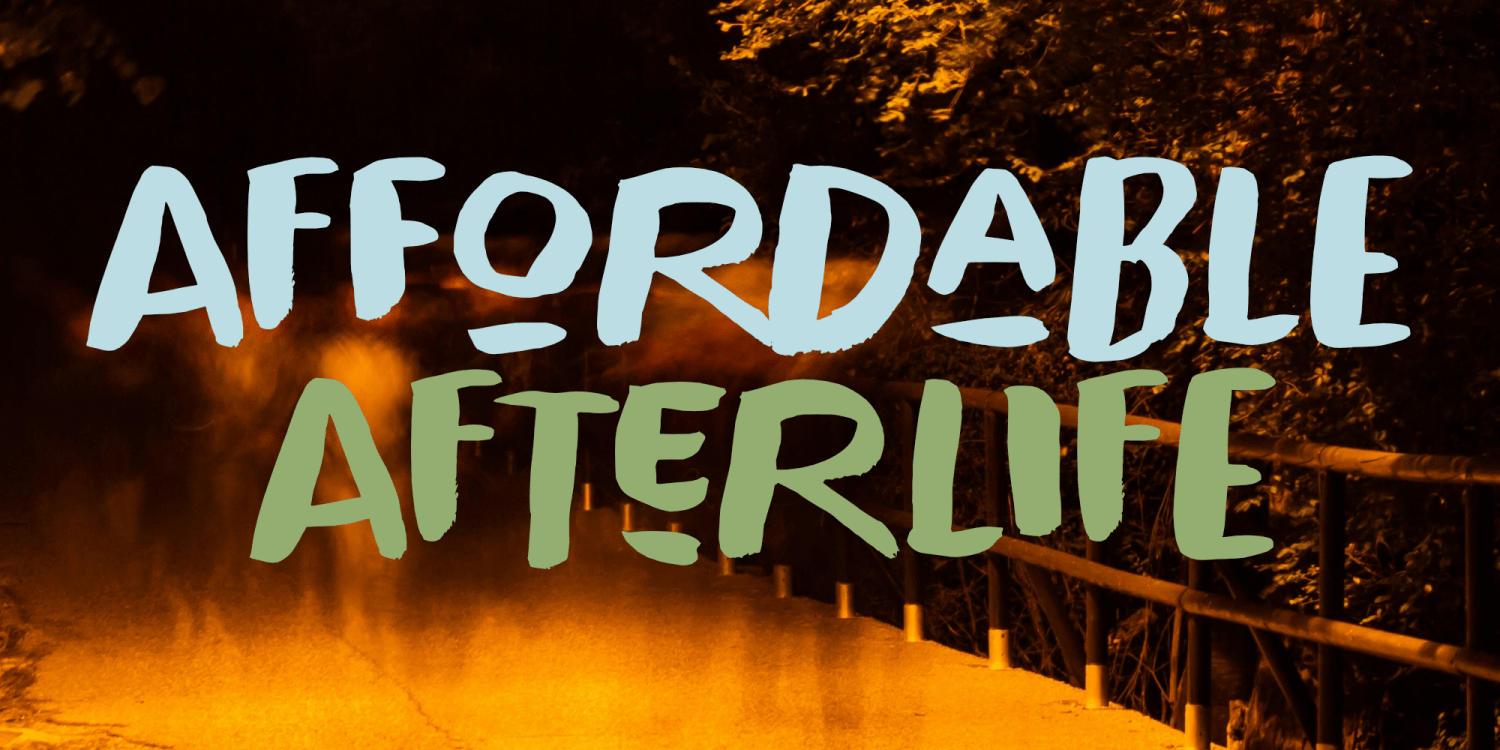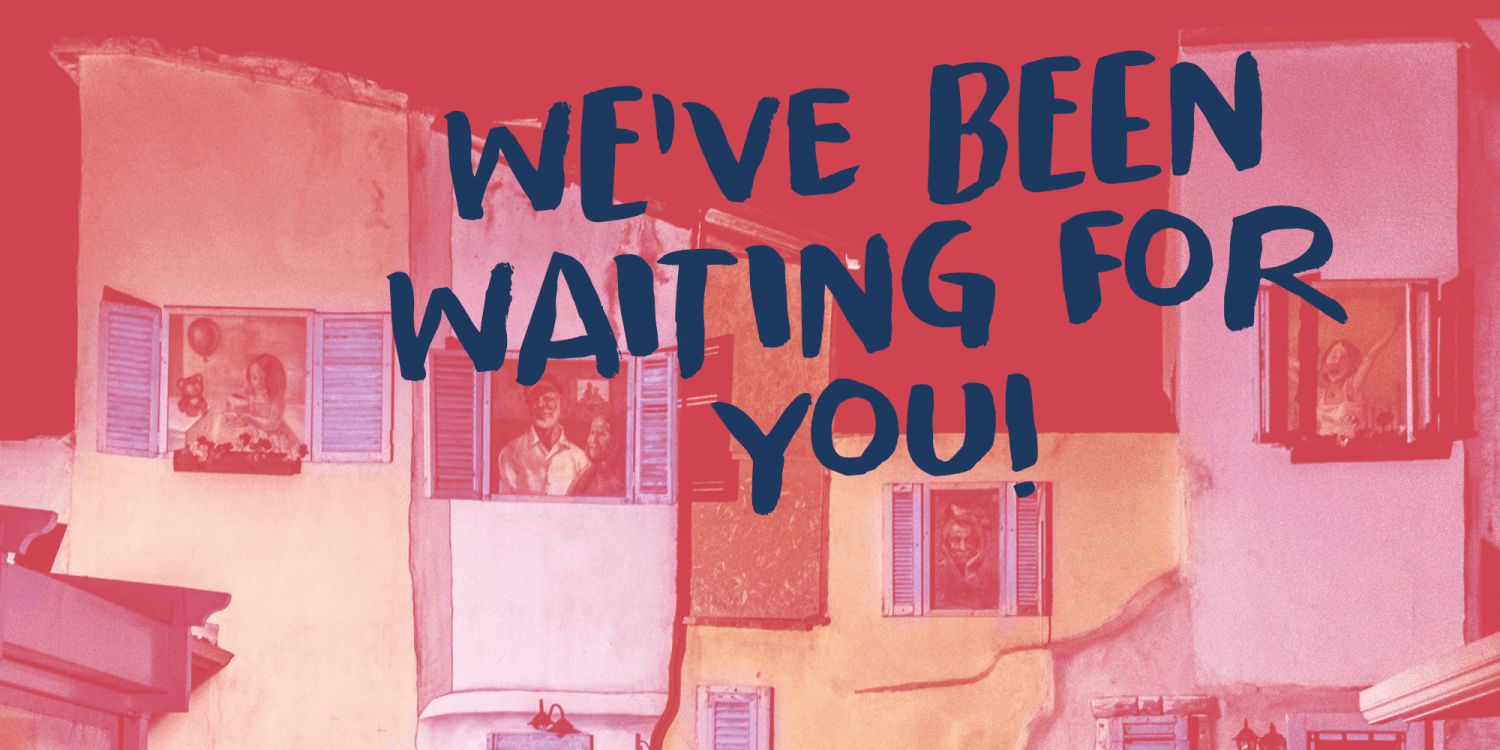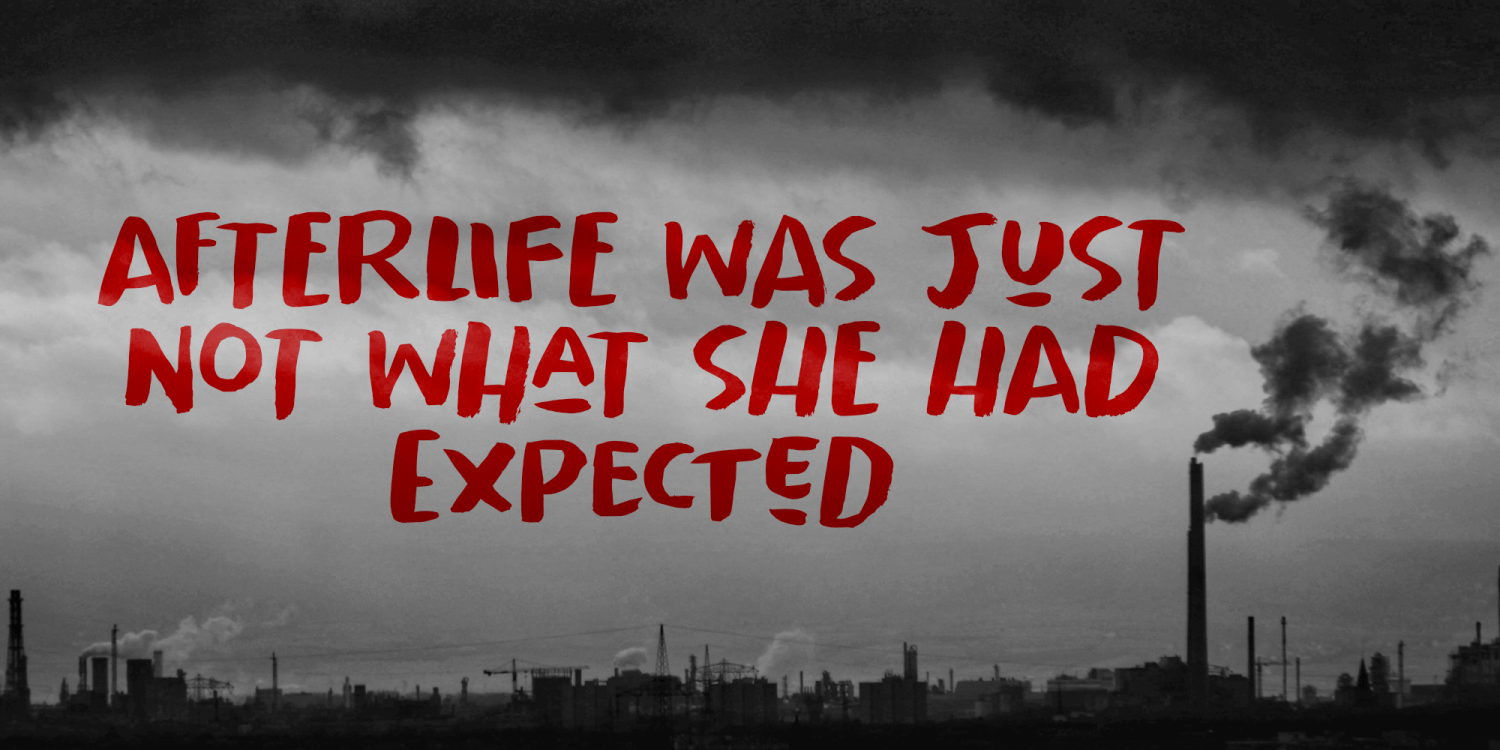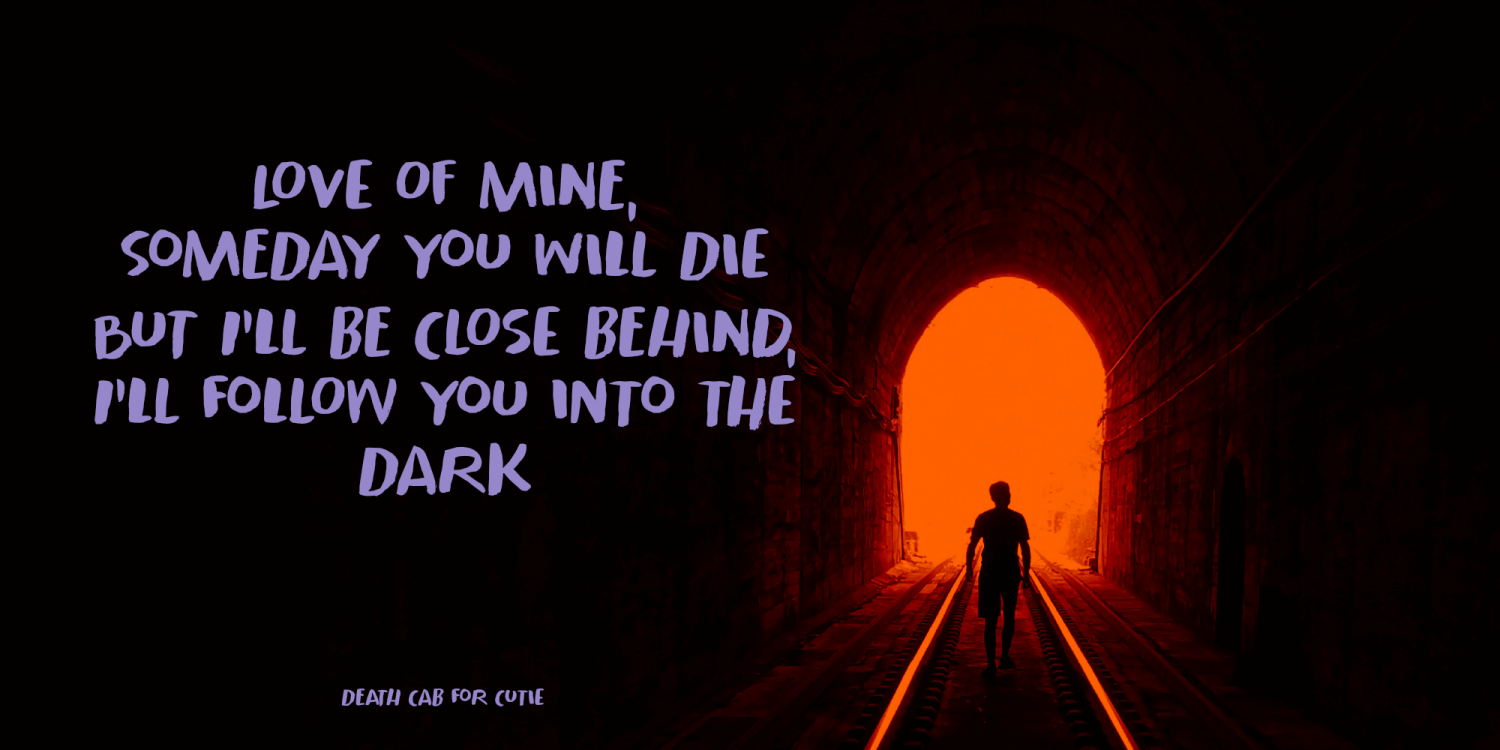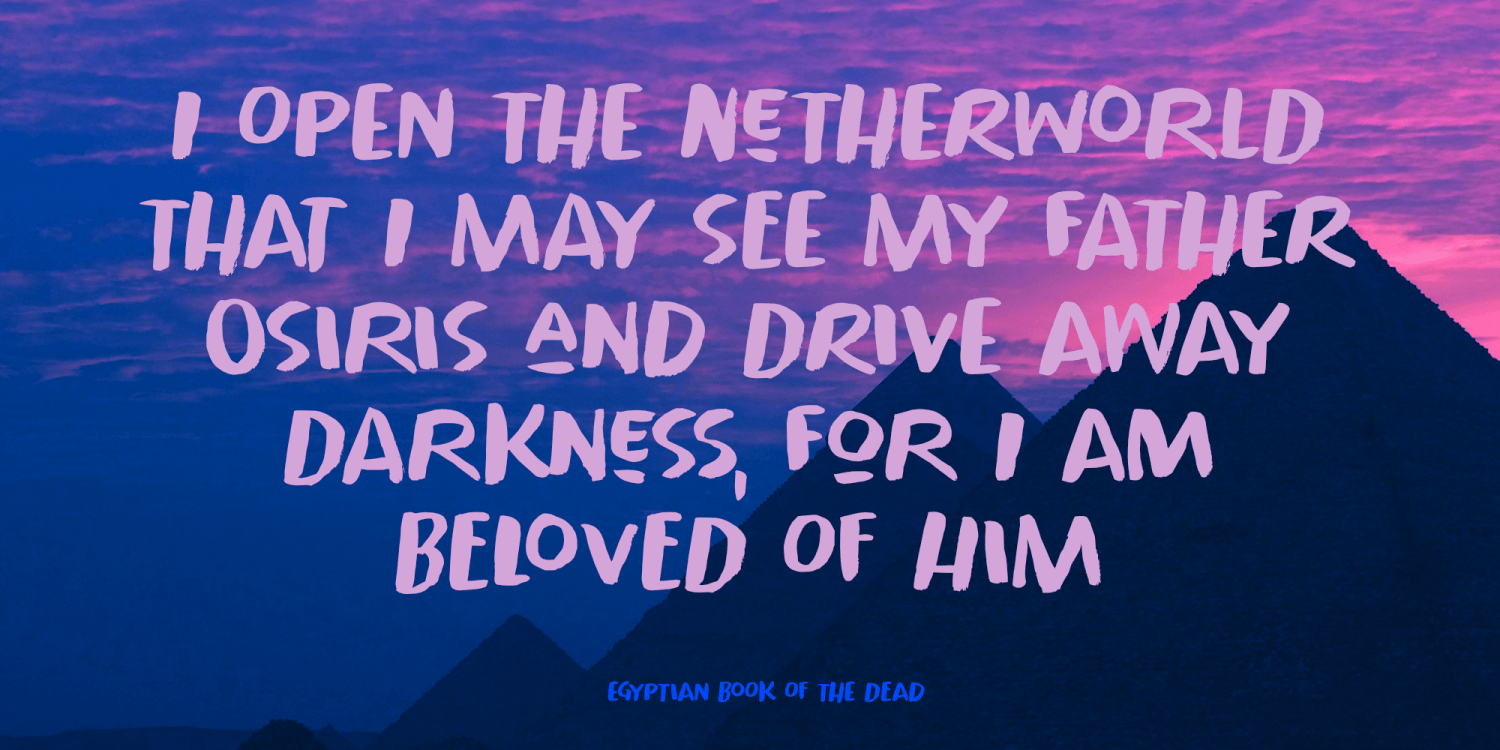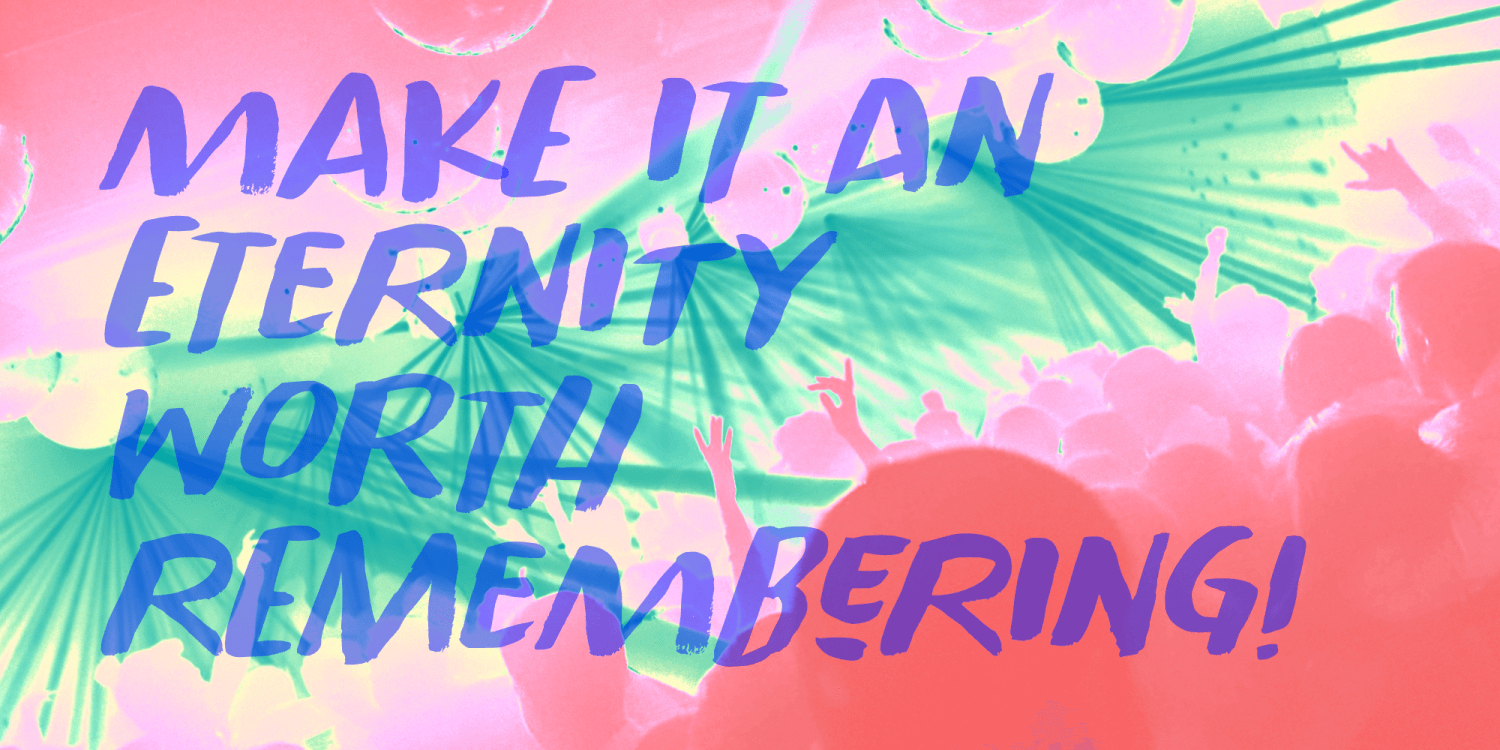
Affordable Afterlife
Affordable Afterlife is a handmade brush font that comes with extensive alternate glyph options and even some nice discretionary ligatures!